In this course Bauertypes, with more than 100 years of experience in typography, distribution and advice, will teach you how to select and implement a typeface for a brand.
You will learn from Bauertypes, all the secrets to create a solid and consistent visual identity according to the needs of the company and to communicate its values. You will also learn to define the technical criteria for its implementation and to know what type of license you need.
You will start discovering the broad trajectory of Bauertypes from the hand of Wolfgang Hartmann, president of the company, who will tell you about the evolution of the company from the distribution of lead types to the digital age.
Then Vivian Hartmann director of Bauertypes, will tell you how they have expanded their objectives to provide typographic advice and license management services.
Next, the designers Natalia Weber Antón (graphic designer and typographic consultant) and Laura Asensio (creative director and graphic designer) will explain basic concepts about typography and you will know in depth how is the process of designing a letter and how its screen optimization is solved .
You will discover the different typography formats, especially the Opentype, where you will discover and explain the wide range of possibilities that this format offers and that, sometimes, are so unknown. You will also acquire a global vision of the typographic market by reviewing the most important foundries and bookstores, knowing the value of typography and its types of licenses.
Later, through some real examples, you will understand the strength of typography in business communication, the different possibilities of corporate typography and how to solve problems through it.
Finally, you will know the criteria for choosing a corporate typography by looking at its communicative values, technical and quality aspects, and how to implement it for later use.
You will implement a corporate typography for a Music Festival. To do this, following a very specific briefing, you will have to design a logo and choose the corporate typographies (one for headlines and another for text blocks) based on the communication values and technical specifications requested. You will have to know how to choose, also, the appropriate licenses.
Then you will develop a stylistic set, that is, a set of pictograms for the Festival in order to be added later to your corporate typography.
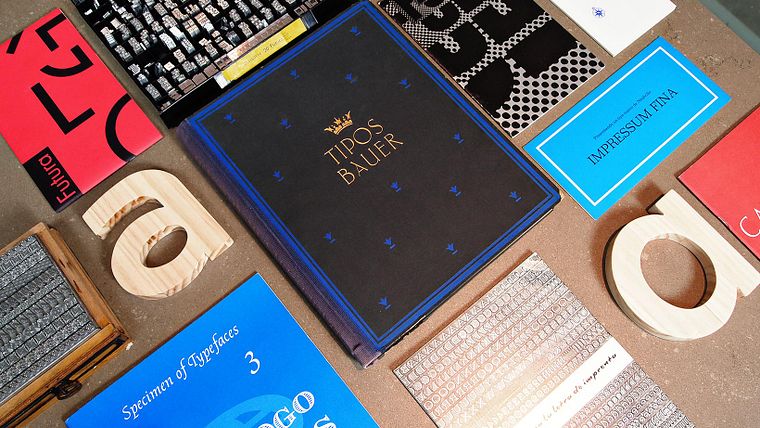
You’ll explore the history of typography, font design and creation, digital licenses, font management, corporate font selection, and technical aspects like formats, hinting, and advanced OpenType features.
You’ll learn the technical, formal, and legal criteria to select, adapt, and implement fonts in corporate visual communication, enhancing brand consistency, uniqueness, and functionality.
You’ll understand the features, benefits, differences, and compatibility of major digital font formats to pick the best one for your platform and environment.